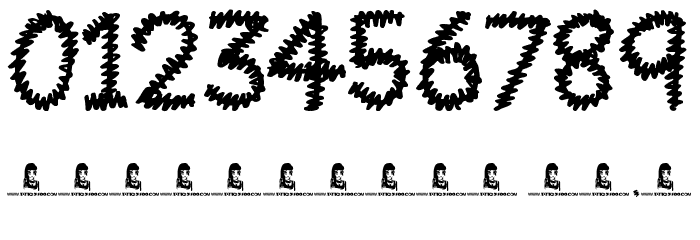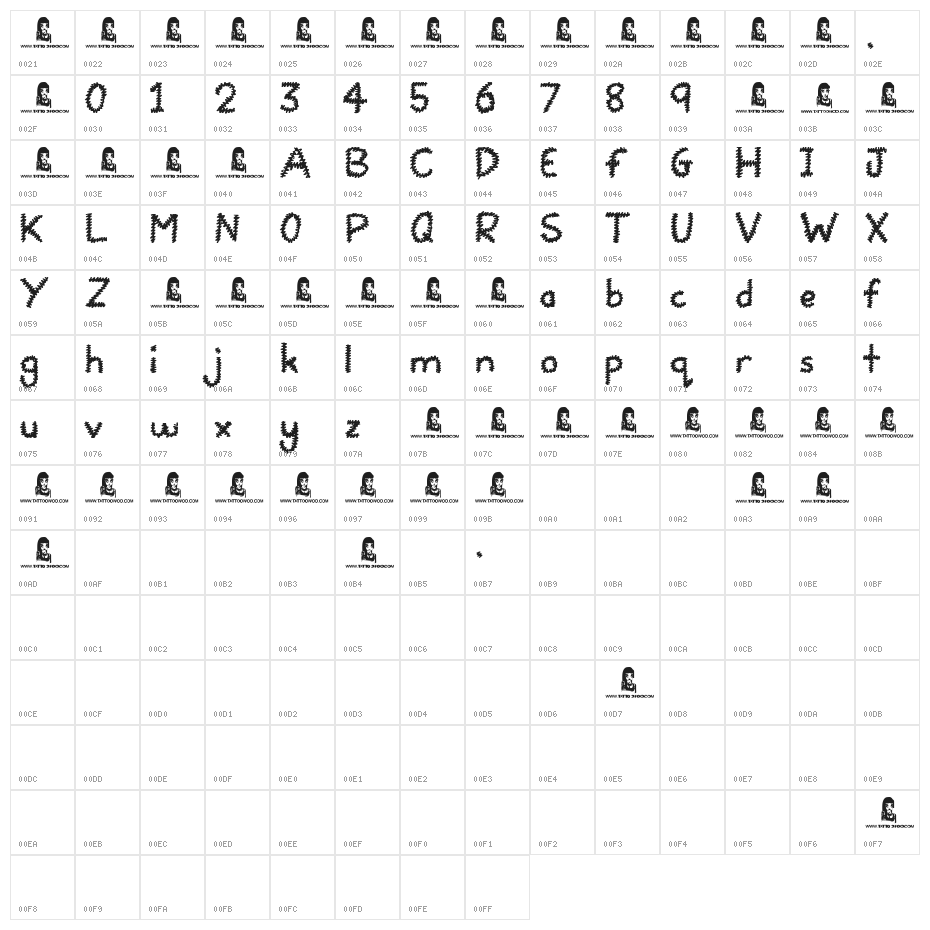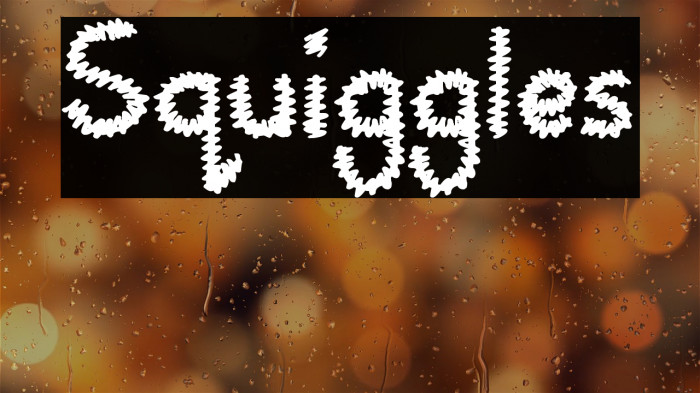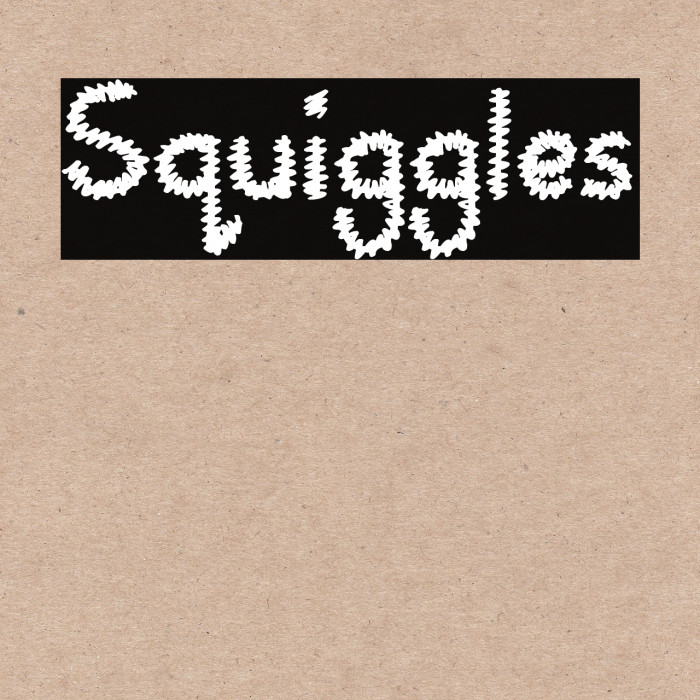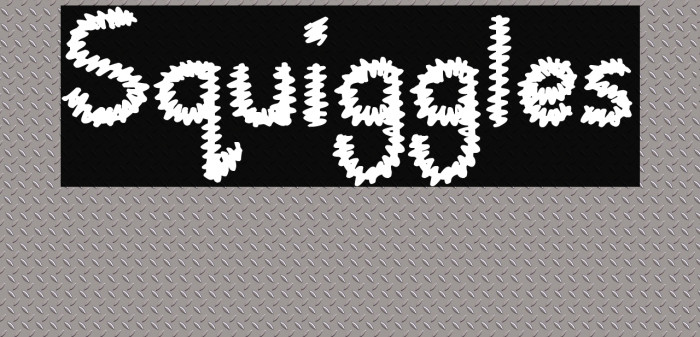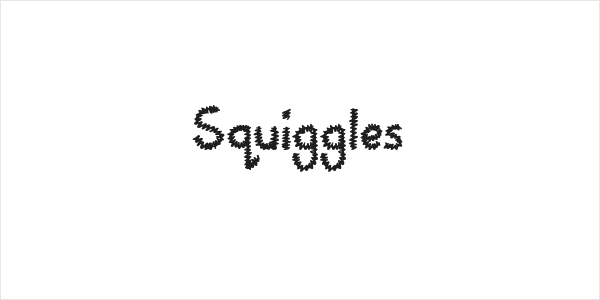
Squiggles Font
Squiggles Description
This font features a playful and whimsical design, characterized by its zigzag, squiggly lines that form each letter and number. The strokes are bold and consistent, creating a sense of movement and energy. The font maintains a uniform thickness throughout, giving it a cohesive look despite its unconventional style. The characters are well-defined, with each letter and number easily distinguishable. This font is ideal for projects that require a fun and informal touch, such as children's books, party invitations, or playful branding materials.
Overall StylePlayful, Whimsical
Proposed ProjectsChildren's books, party invitations, playful branding materials.